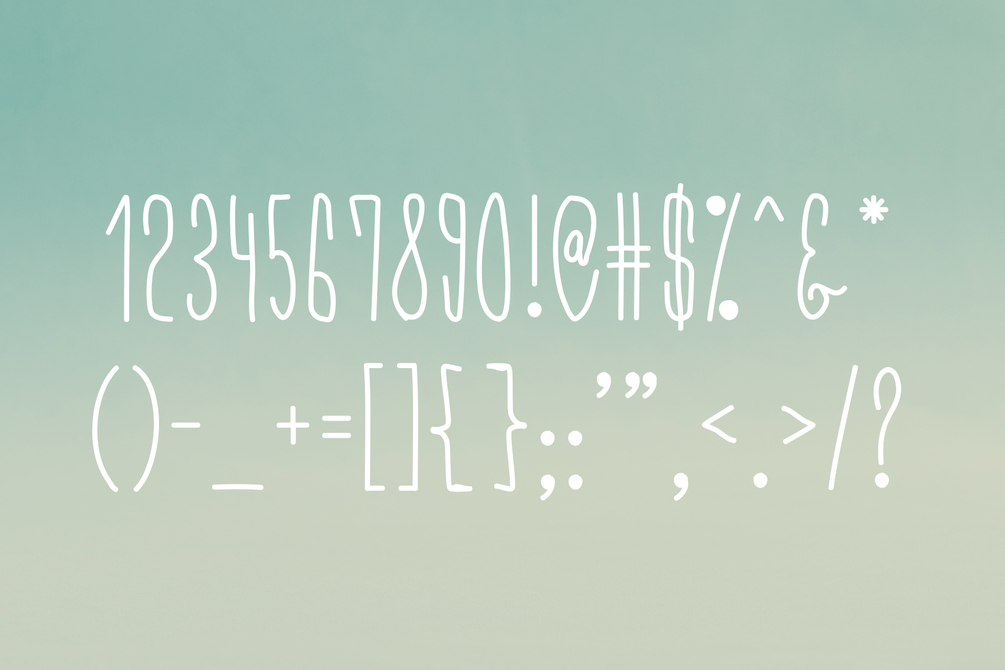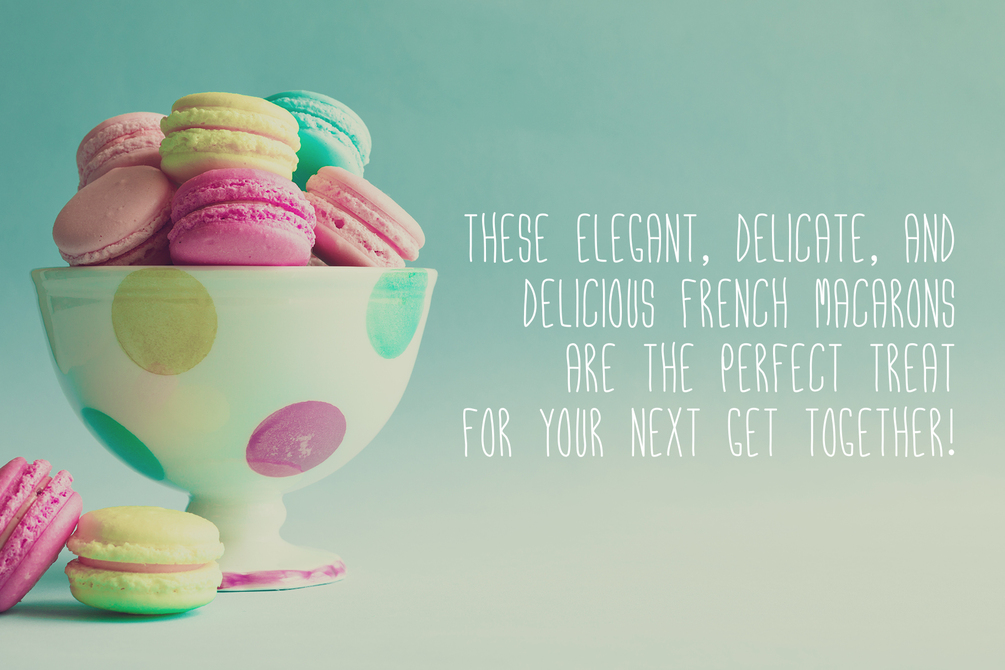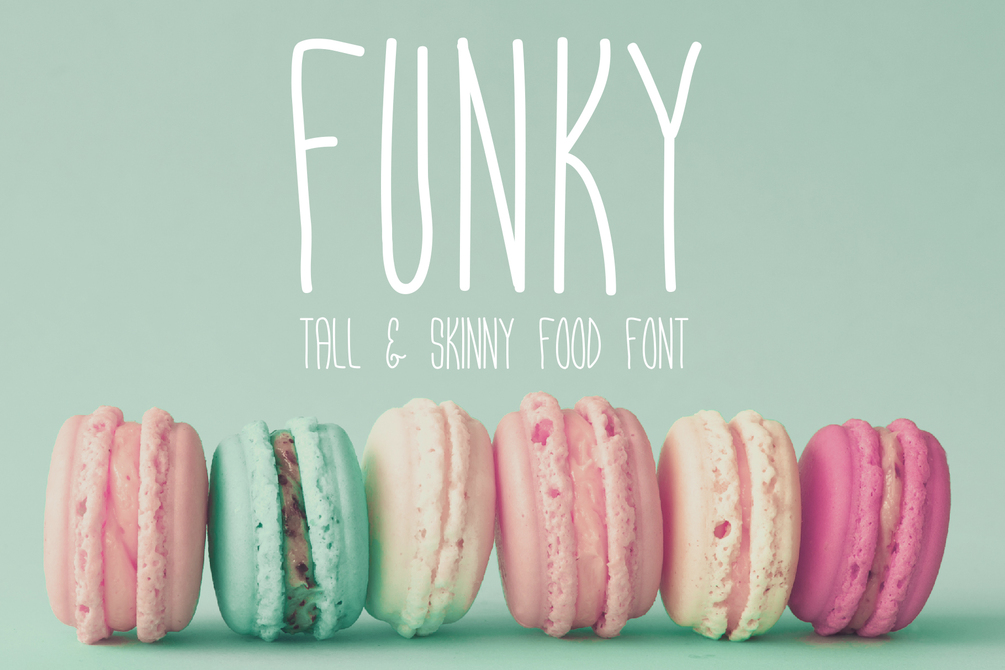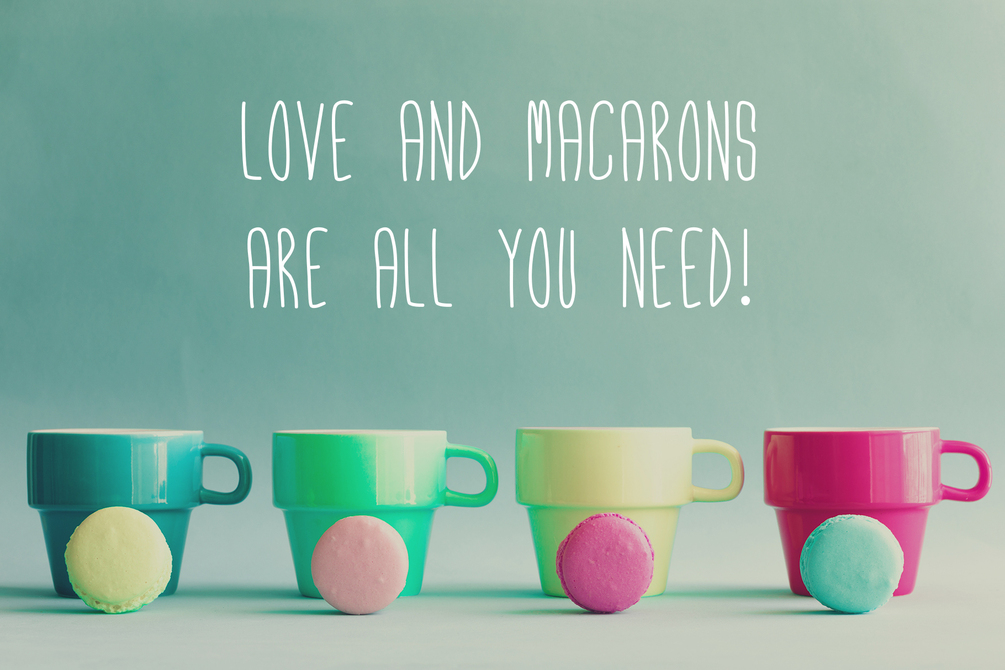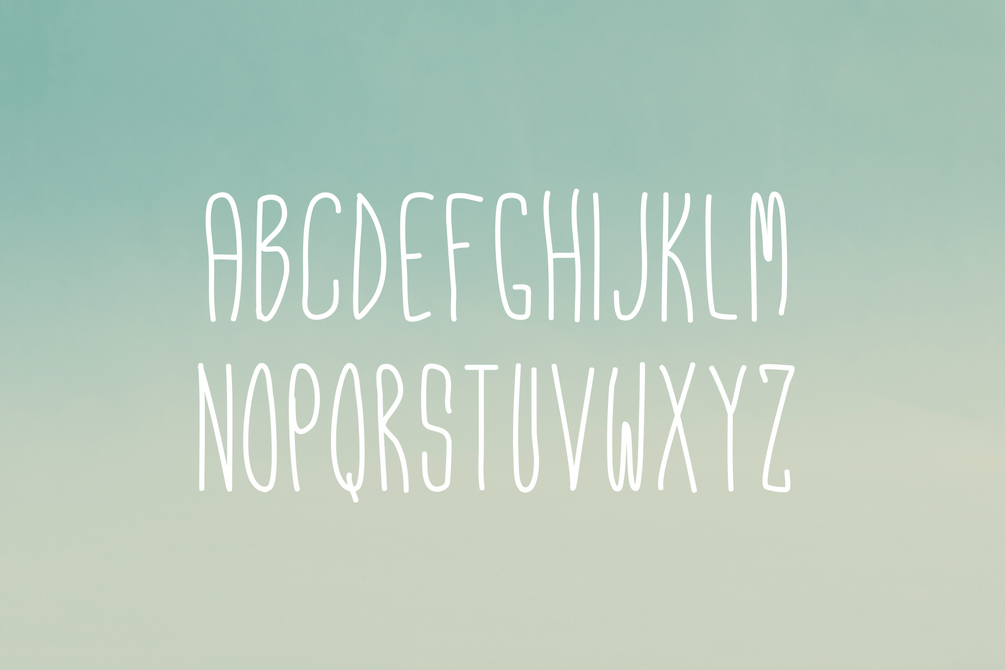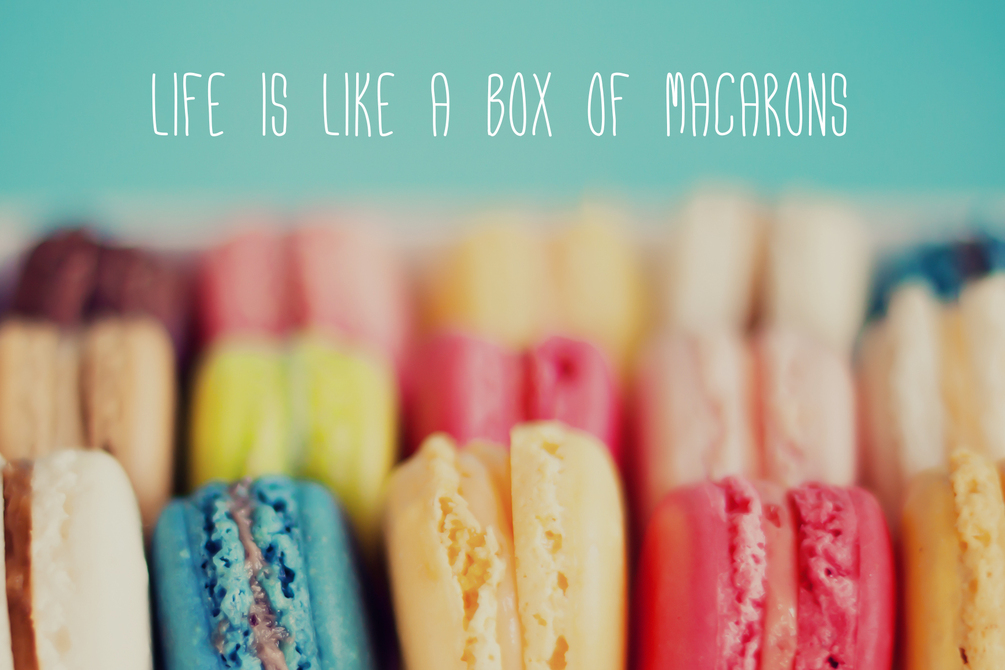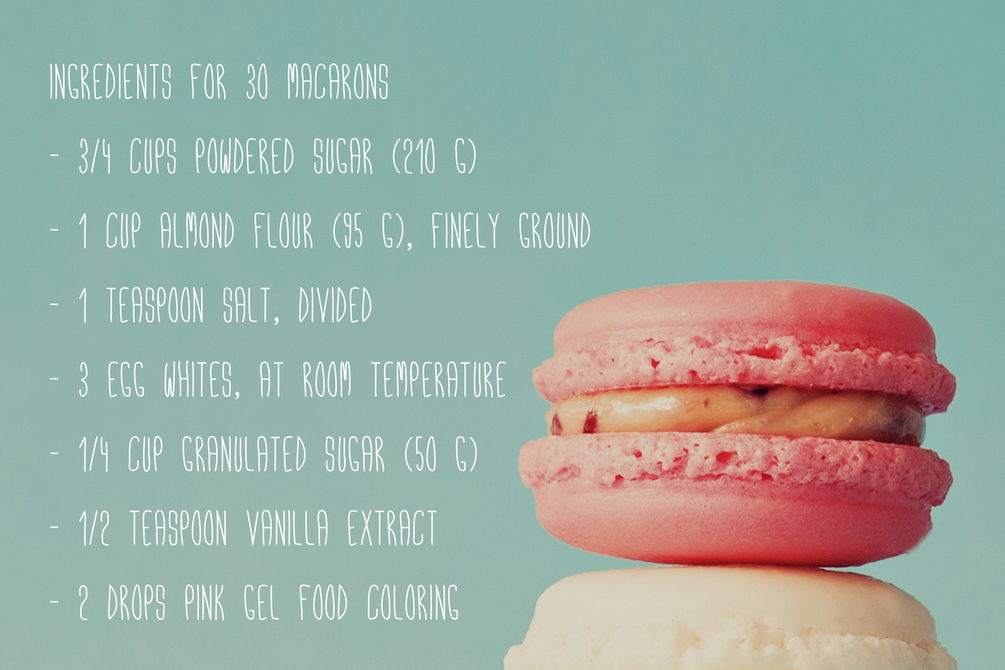
Funky - Food Font
Funky is an adorable versatile sans-serif display font. It's hand drawn, tall, light, and thin. The font has a slightly bubbly personality while still being completely legible, neat, decorative, and distinct. It's prefect for adding a playful touch to your work.